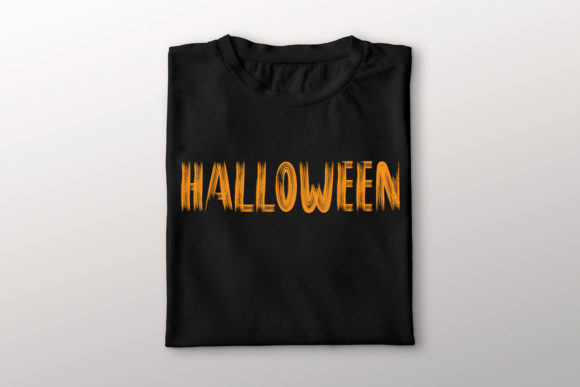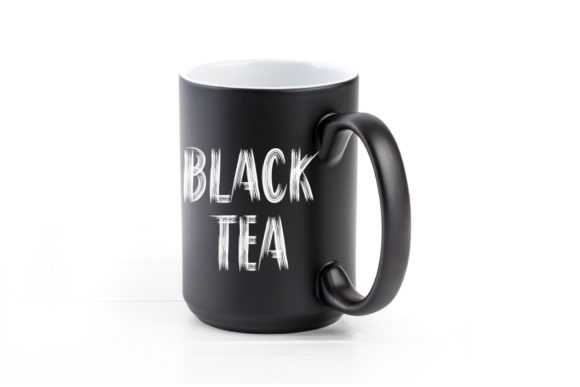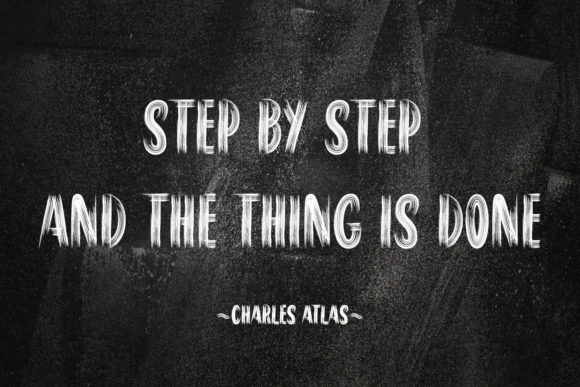
The Birth of a Trendy Font
Do you remember the moment when you first discovered the perfect font to match your creative vision? Maybe it was a bold, edgy typography that spoke to your artistic soul. For many designers, that moment is often the start of a new project, a fresh perspective, or a bold statement. The Grunge Font is one of those typography game-changers that can elevate your designs to the next level.
This fun, cool, and thick lettered display font embodies the spirit of playfulness and authenticity, making it a perfect choice for any street art design or urban creation. Whether you’re a seasoned designer or a beginner, the Grunge Font is a valuable addition to your typography arsenal. Its unique style and versatility make it an ideal choice for a wide range of projects, from posters to social media graphics.
Grunge Font Key Features
- Unique Characteristics: Grunge Font features a distressed, grungy aesthetic with rough edges, imperfections, and texture, giving it a unique and eye-catching appearance.
- Legibility: Despite its distressed appearance, Grunge Font remains highly legible, making it suitable for a wide range of applications, from body text to headlines.
- Style Options: Grunge Font comes in multiple styles, including regular, bold, italic, and bold italic, allowing designers to mix and match to achieve the desired look.
Grunge Font Review
Overall, I think the Grunge Font is a solid addition to any designer’s toolkit. It’s a bold, eye-catching font that can add a lot of personality to your designs. ✨ Here are some things that really work well:
- The font’s distressed texture gives it a unique, handmade feel that’s perfect for adding a touch of grit to your designs.
- The font is highly customizable, with a range of options for adjusting the texture, color, and size to fit your needs.
- The font is highly legible, even in small sizes, making it a great choice for use in body text or for creating headlines.
Of course, no font is perfect, and the Grunge Font has a few limitations. ⚠️ Here are some things to keep in mind:
- The font’s distressed texture can sometimes be distracting or overwhelming, especially in large quantities.
- The font may not be the best choice for use in formal or professional settings, where a more traditional font may be more suitable.
- The font’s customization options can be a bit overwhelming, especially for beginners.
Overall, I’d say the Grunge Font is a great choice for designers who want to add a bit of edge to their designs. With a little practice and patience, it can be a powerful tool for creating unique and eye-catching designs.
The Grunge font is commonly used in designs that require a distressed, vintage look. Some common use cases include:
- Music posters and flyers
- Rock and roll-inspired designs
- Retro-style graphics and logos
- Distressed text overlays for images
To get the most out of the Grunge font, experiment with different combinations of font sizes, colors, and styles. Don’t be afraid to add texture and noise effects to achieve the perfect distressed look. Also, consider pairing the Grunge font with other distressed or vintage-inspired elements to create a cohesive design.